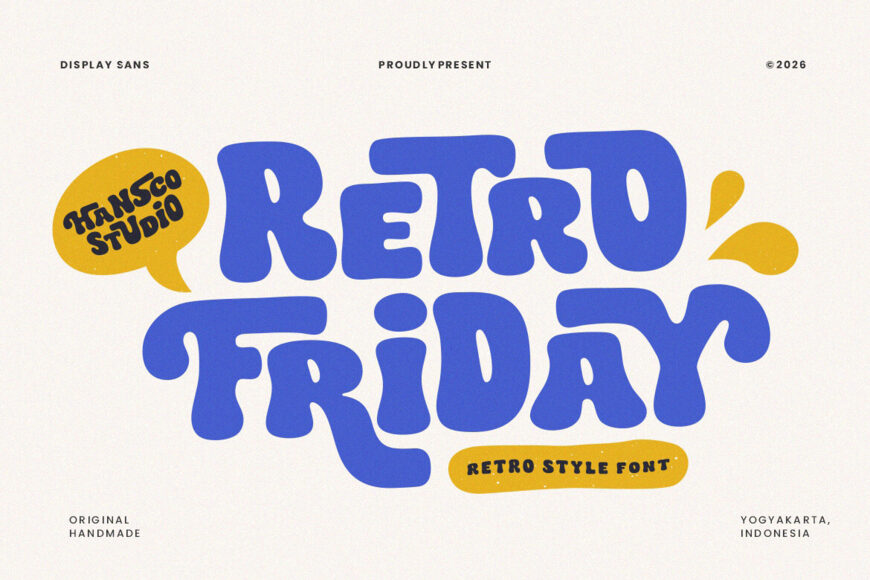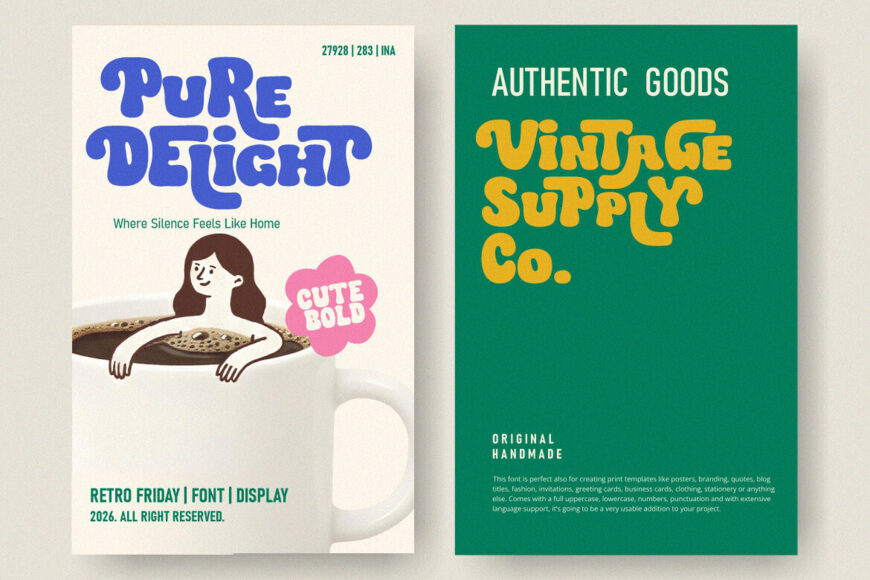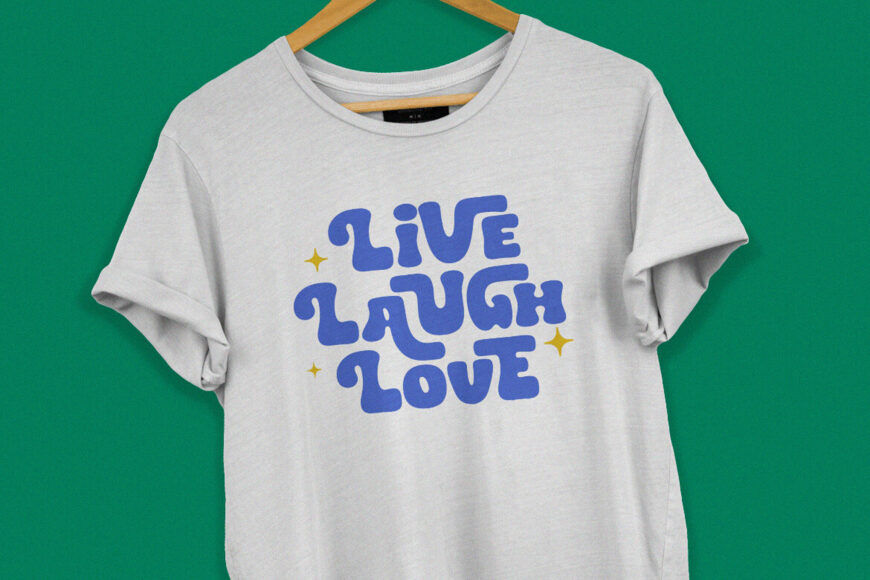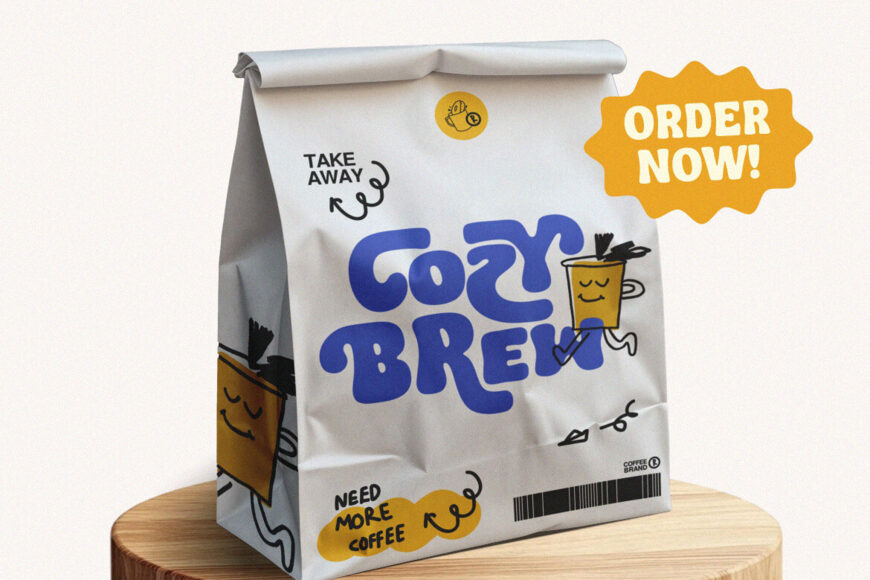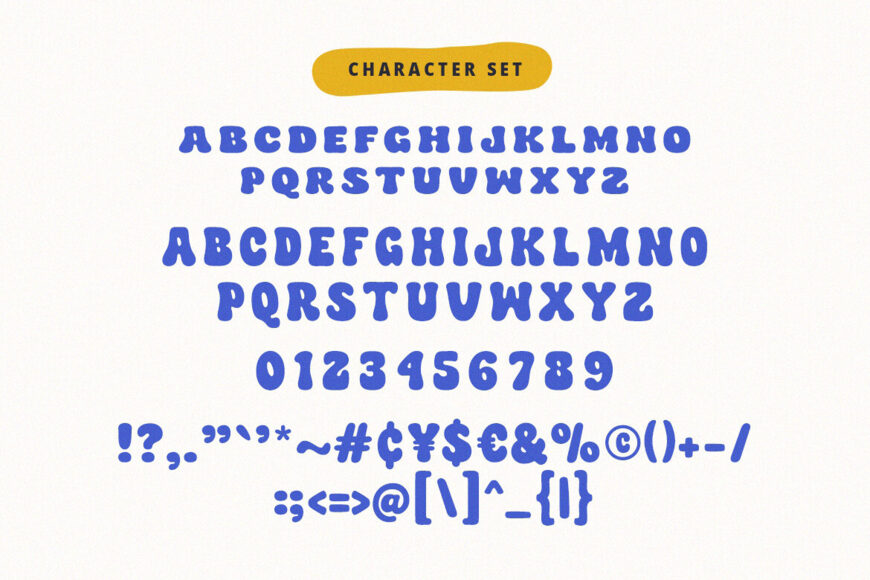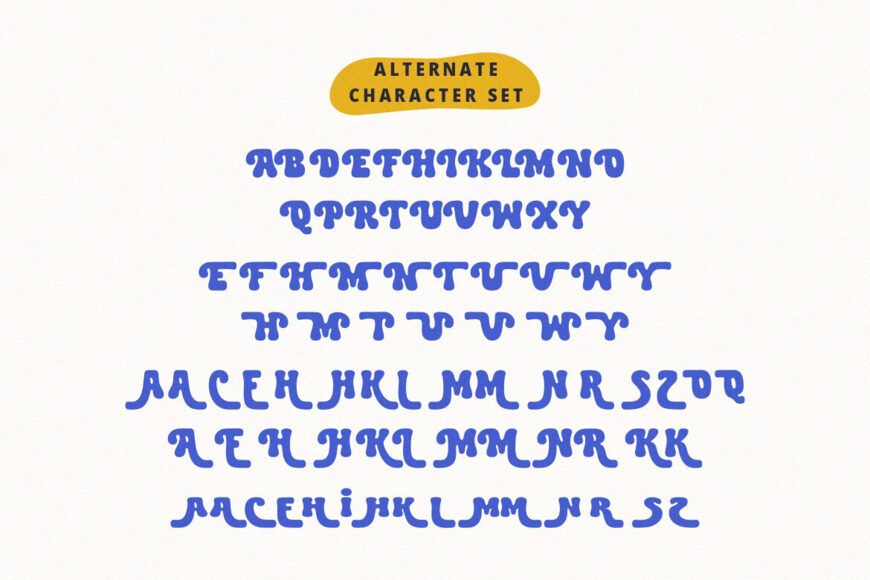
Retro Friday font is a uniquely crafted retro groovy typeface designed to bring bold character and nostalgic charm to your designs. Its playful curves and vintage-inspired shapes capture the spirit of classic retro aesthetics while still feeling fresh and distinctive.
Perfect for logos, branding, posters, apparel designs, and other creative projects, this font helps your work stand out with a strong and memorable retro personality.